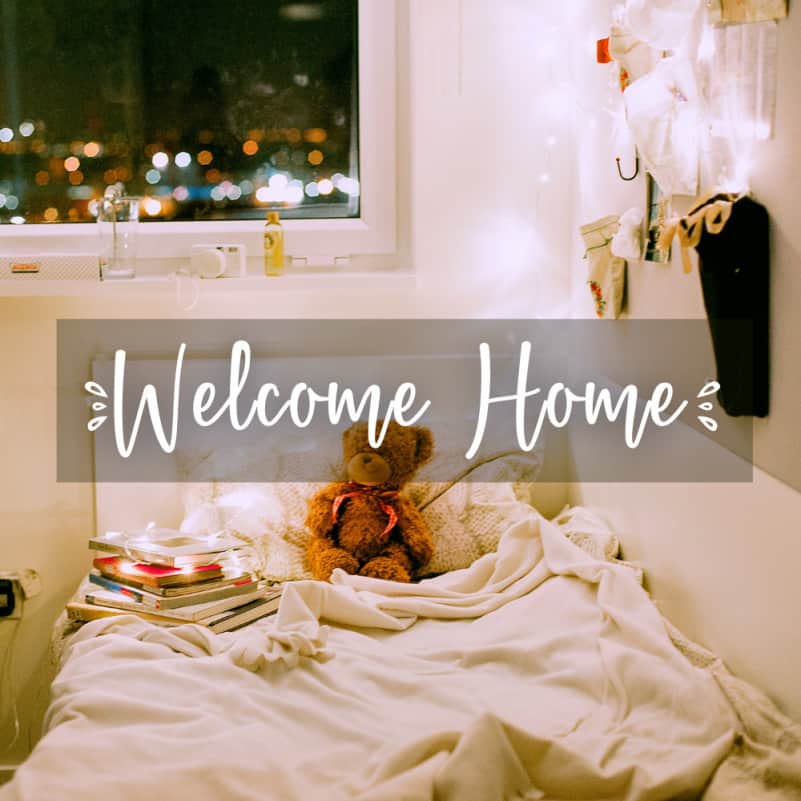
Welcome Home Script Font
Welcome Home Script Font is a cute & quirky handwritten script font. This is an incredibly classic style font in the form of modern calligraphy.
Welcome Home is perfectly suited for Quotes, Branding, Logos, Greeting Cards, Invitations, Stationery Design, Children’s designs, T-shirts, Packaging designs, Poster, Typographic designs, Papercrafts, Digital crafts, and so much more!